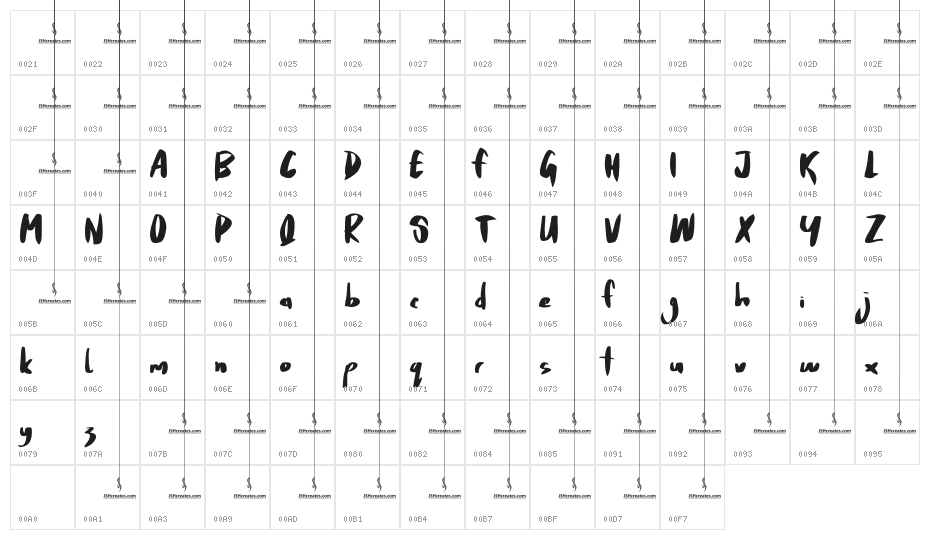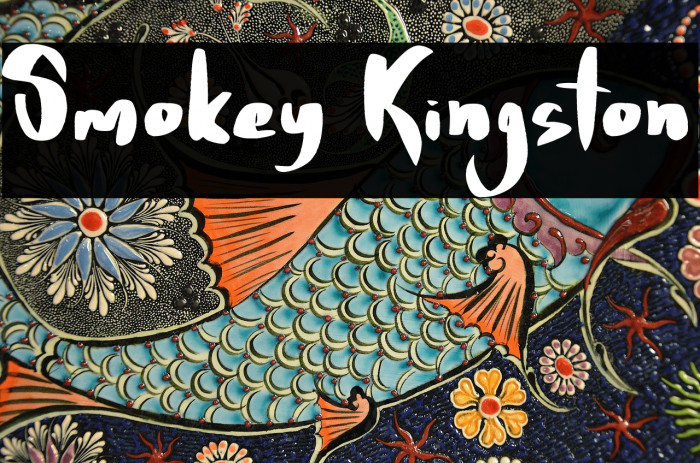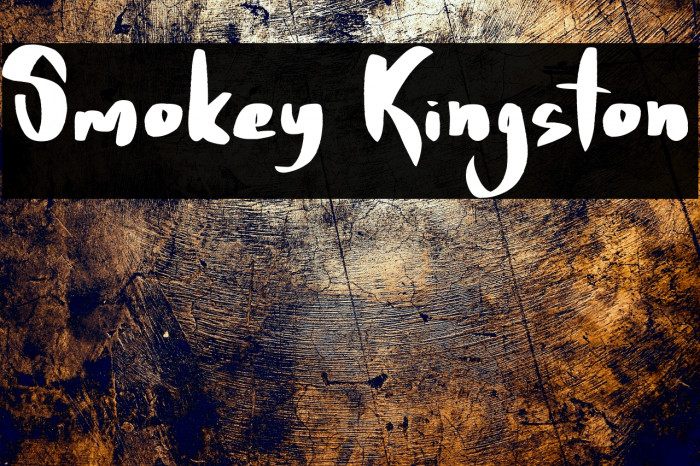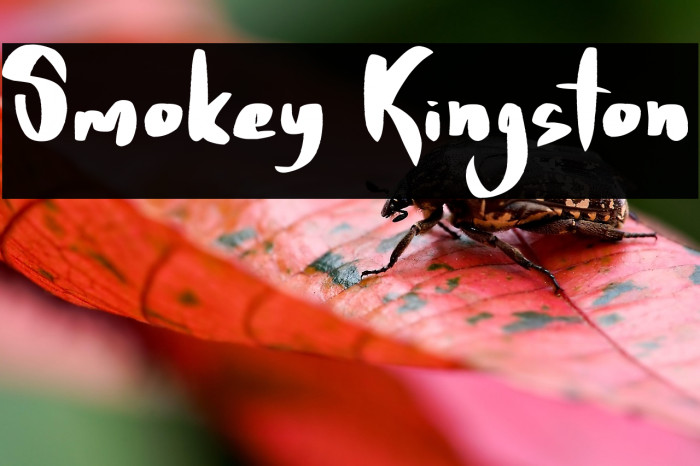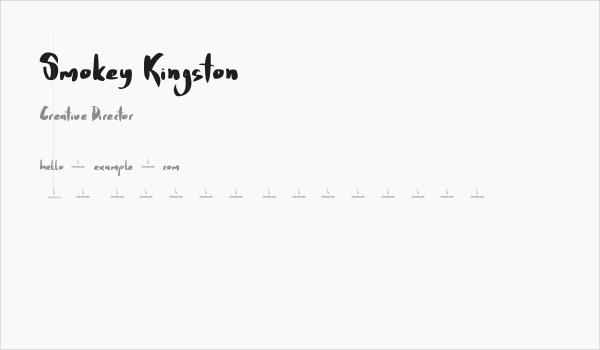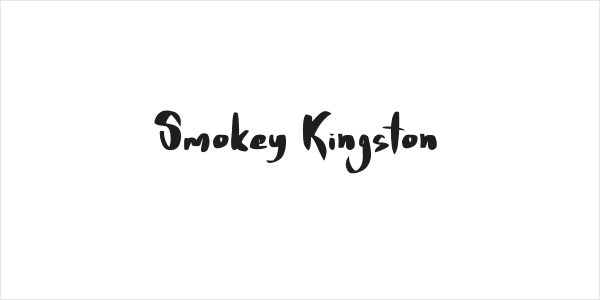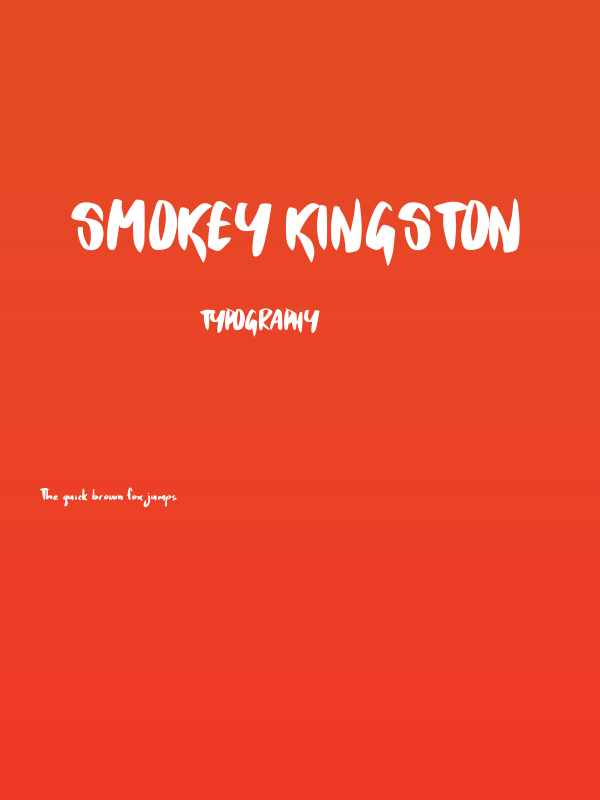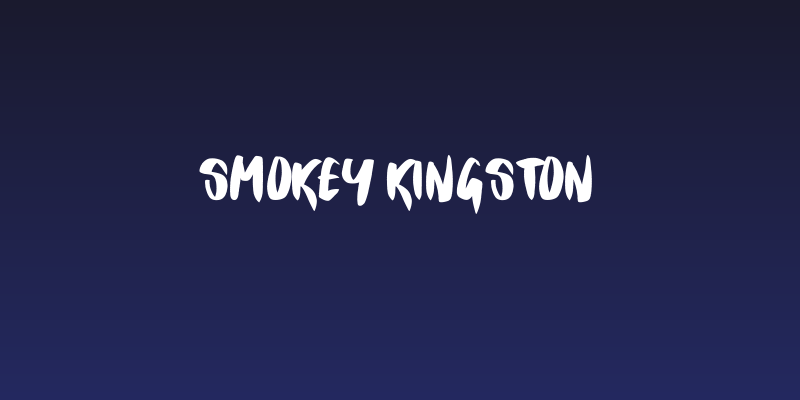
Smokey Kingston Font
Smokey Kingston Description
This font exudes a bold and expressive style, characterized by its thick, brush-like strokes that convey a sense of dynamic movement and energy. The uppercase letters are robust and commanding, while the lowercase letters maintain a playful yet cohesive appearance. The overall design is reminiscent of hand-painted signage, offering a unique blend of casual elegance and artistic flair. Its distinctiveness is further enhanced by the irregularities in stroke width, adding a touch of authenticity and handcrafted charm.
| Proposed Projects | Ideal for branding projects, poster designs, and creative headlines that require a touch of artistic flair. |